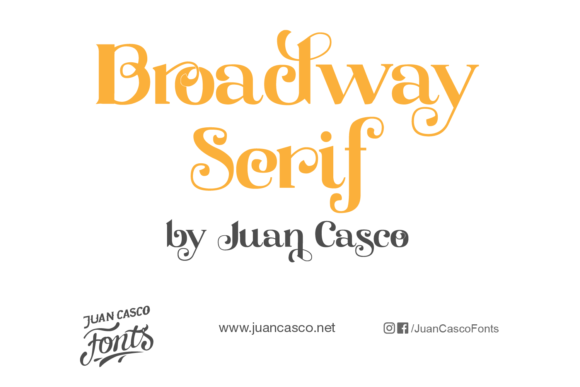
The Broadway Font: A Timeless Classic for Creative Projects
I’ll never forget the time I was working on a vintage-themed party invitation for a friend’s milestone birthday. I had the design concept nailed, but I was struggling to find the perfect font to bring it all together. That’s when I stumbled upon the Broadway font, and it was love at first sight! 💕 The elegant serifs, the classic vibe, and the versatility – it was exactly what I needed to make my design shine.
- ✅ Unique vintage style: Broadway font has a distinct, nostalgic feel that’s perfect for creating classic-inspired designs.
- ✅ Highly versatile: From blog posts and logos to invitations and photo albums, this font can be used for a wide range of creative projects.
- ✅ Elegant serifs: The subtle flair at the ends of the letters adds a touch of sophistication to any design.
- ✅ Easy to read: Despite its ornate style, the Broadway font remains clear and legible, even at smaller sizes.
- ⚠️ Limited use in body text: While the Broadway font is stunning for headlines and titles, it may not be the best choice for lengthy body text due to its ornate style.
- ⚠️ May not be suitable for very small sizes: The elegant serifs and classic details may get lost when the font is scaled down too much.
The Story Behind Broadway Font: A Designer Inspiration
The Broadway font was designed with the golden age of Broadway in mind. Its creator drew inspiration from the ornate signage and elegant typography of classic New York City theaters. The result is a font that exudes sophistication, glamour, and a touch of nostalgia.
Q: What type of projects is the Broadway font best suited for?
A: The Broadway font is versatile and can be used for a wide range of projects, including blog posts, logos, branding, ads, invitations, greeting cards, planners, photo albums, and decorations.